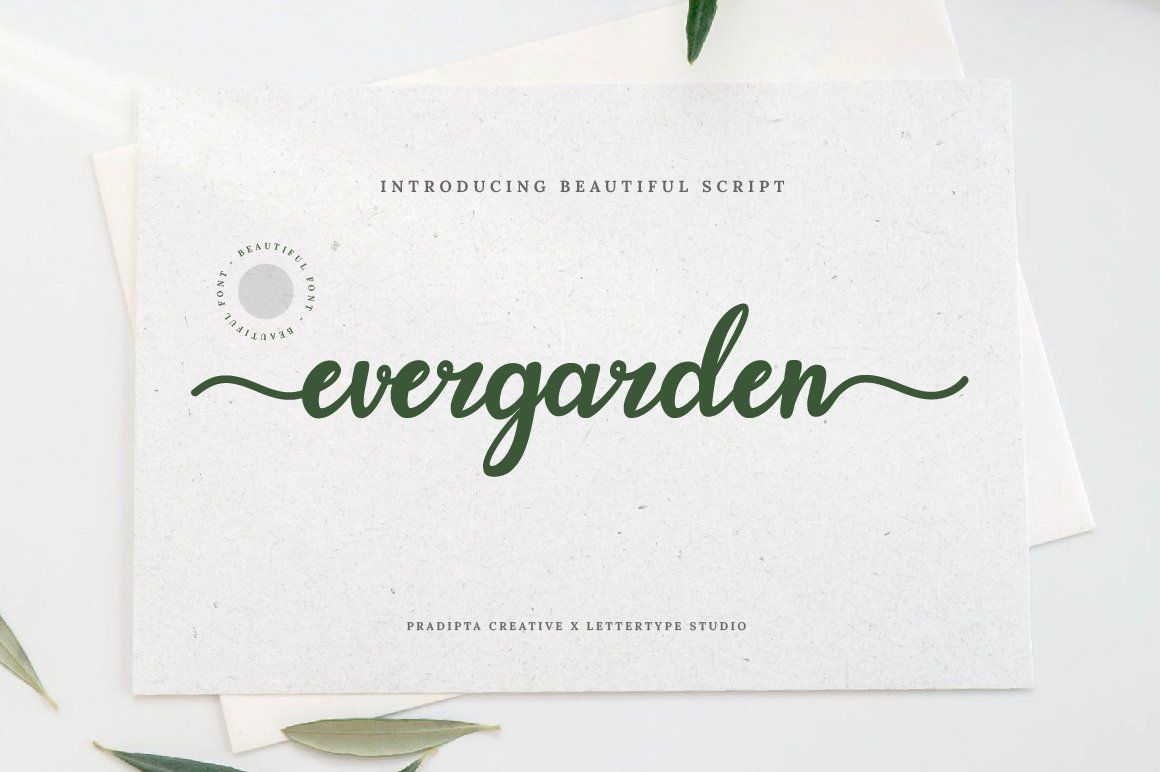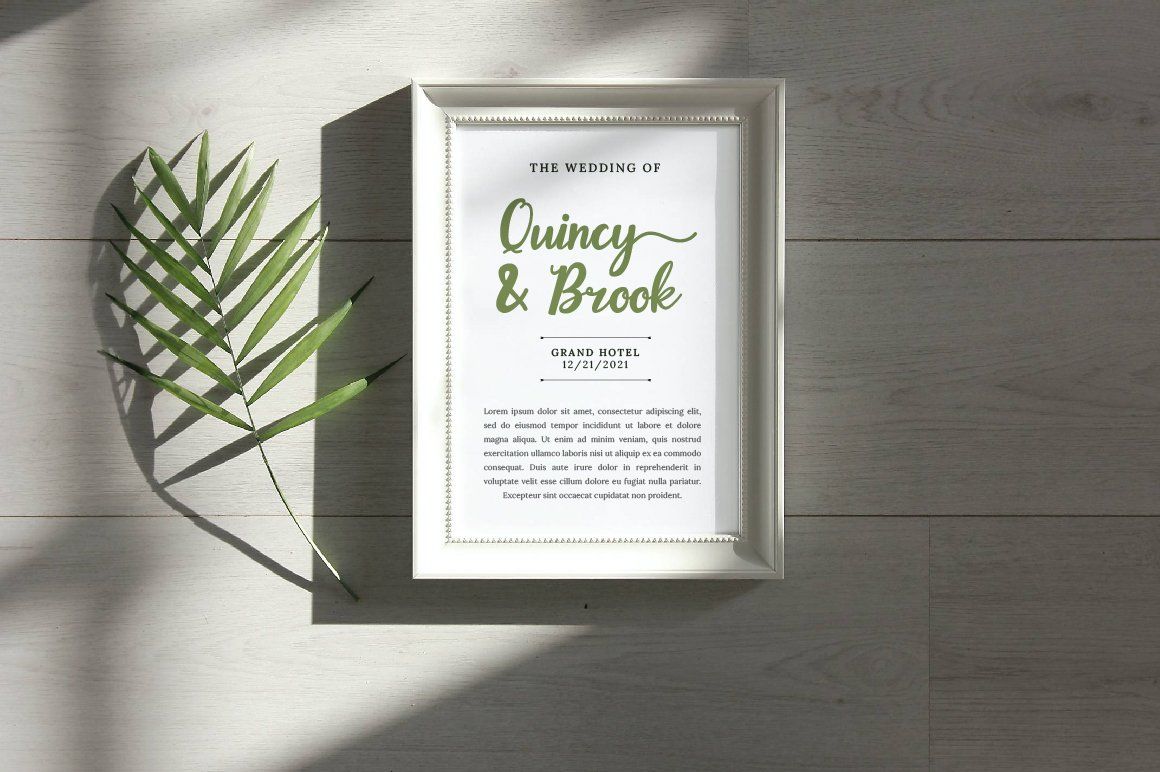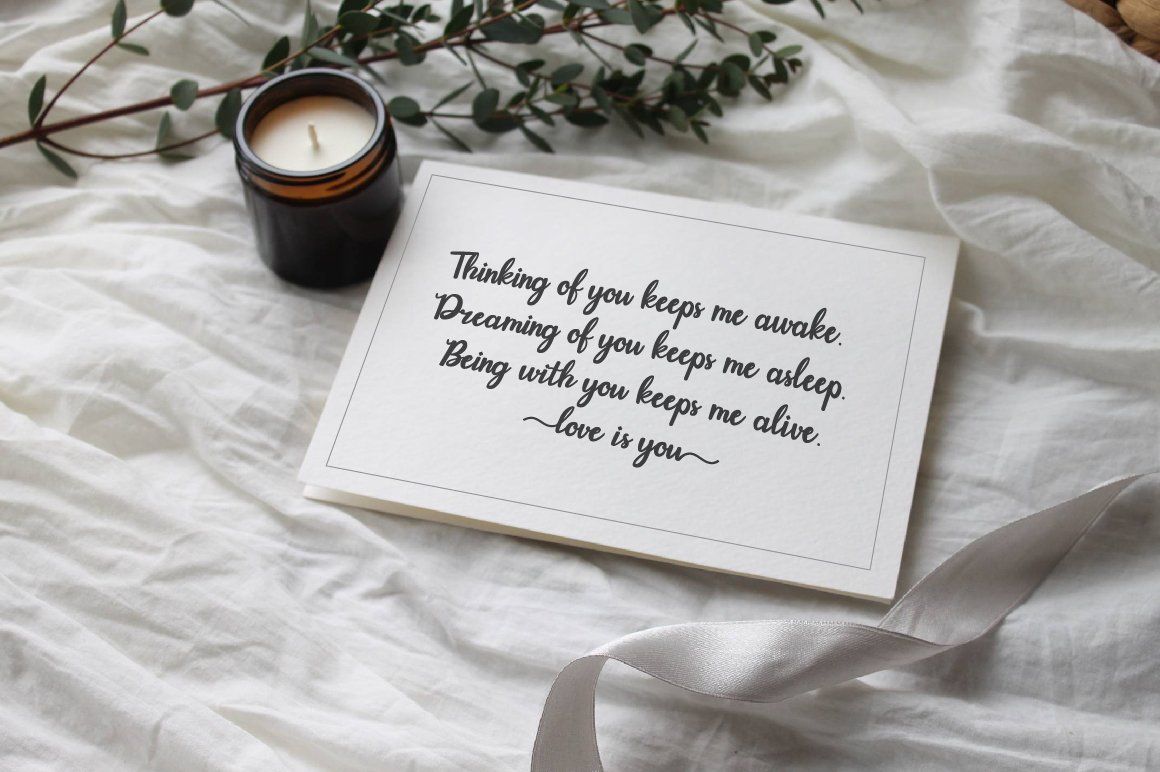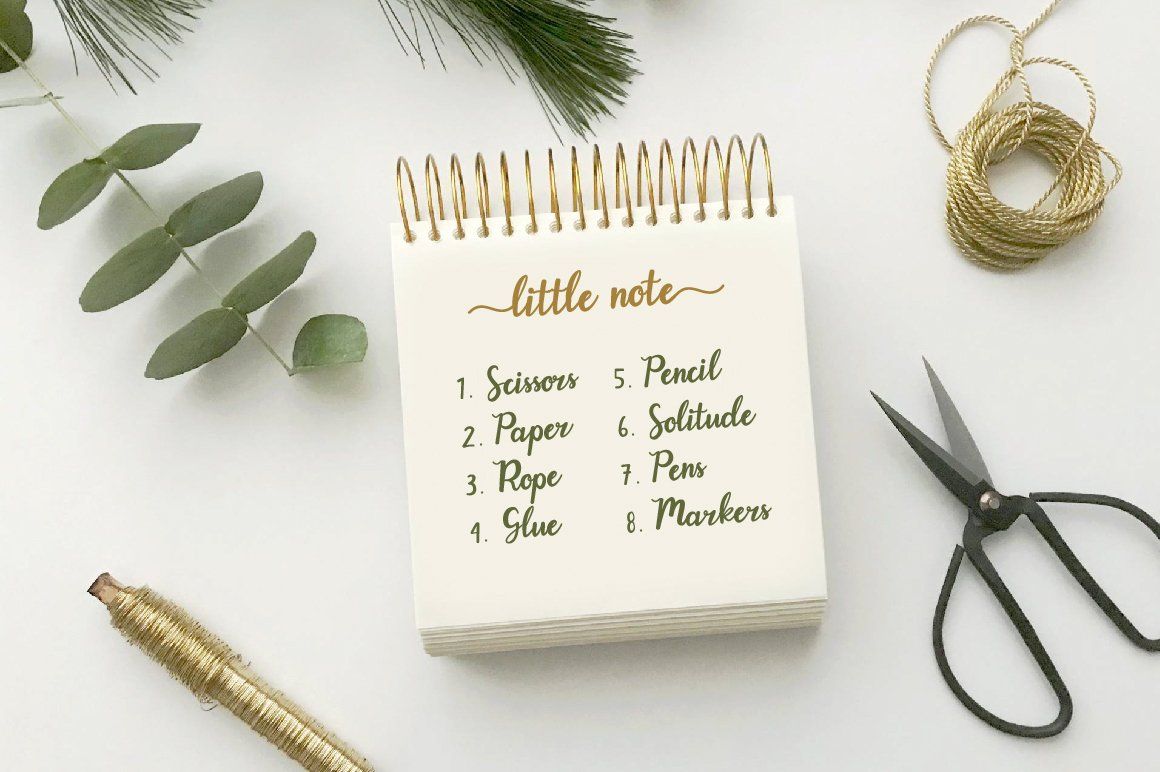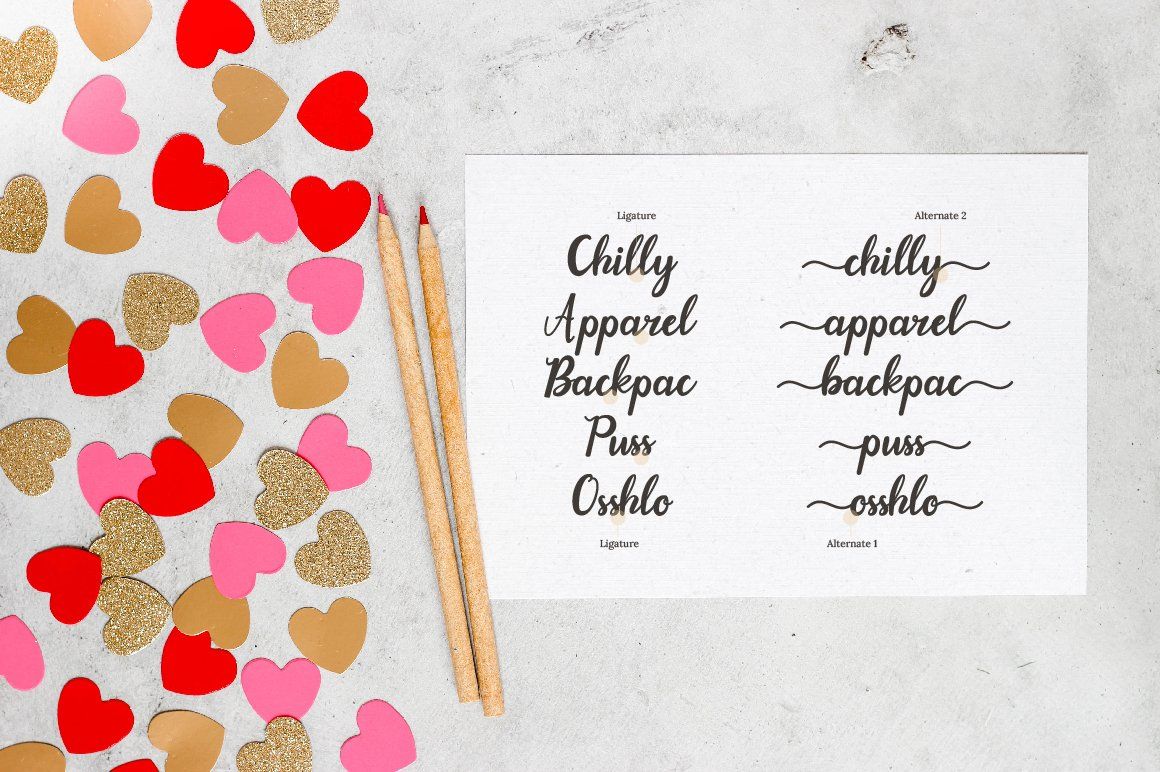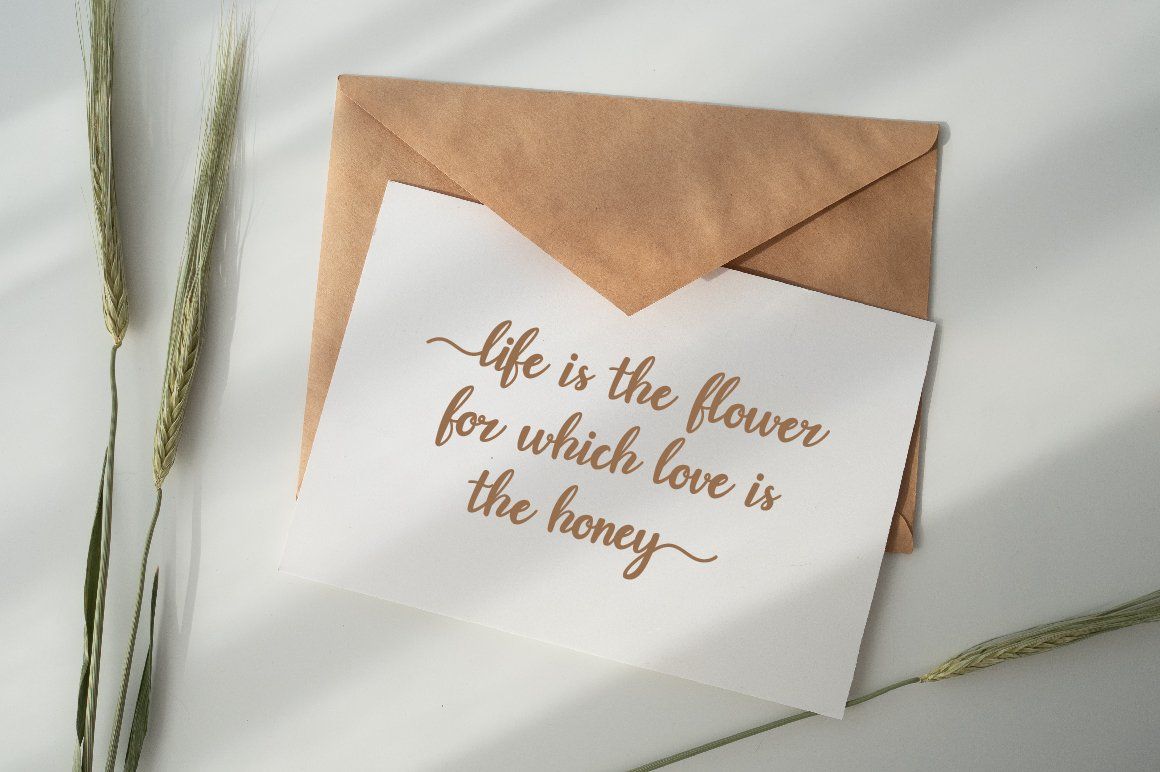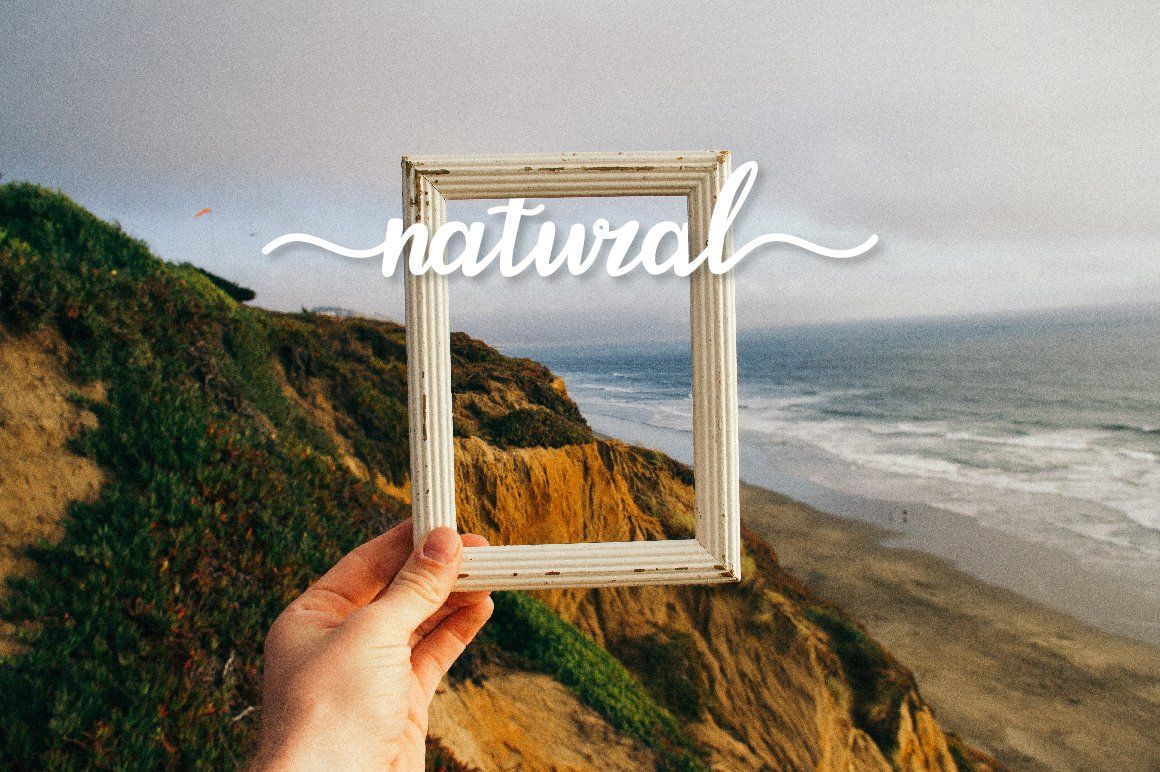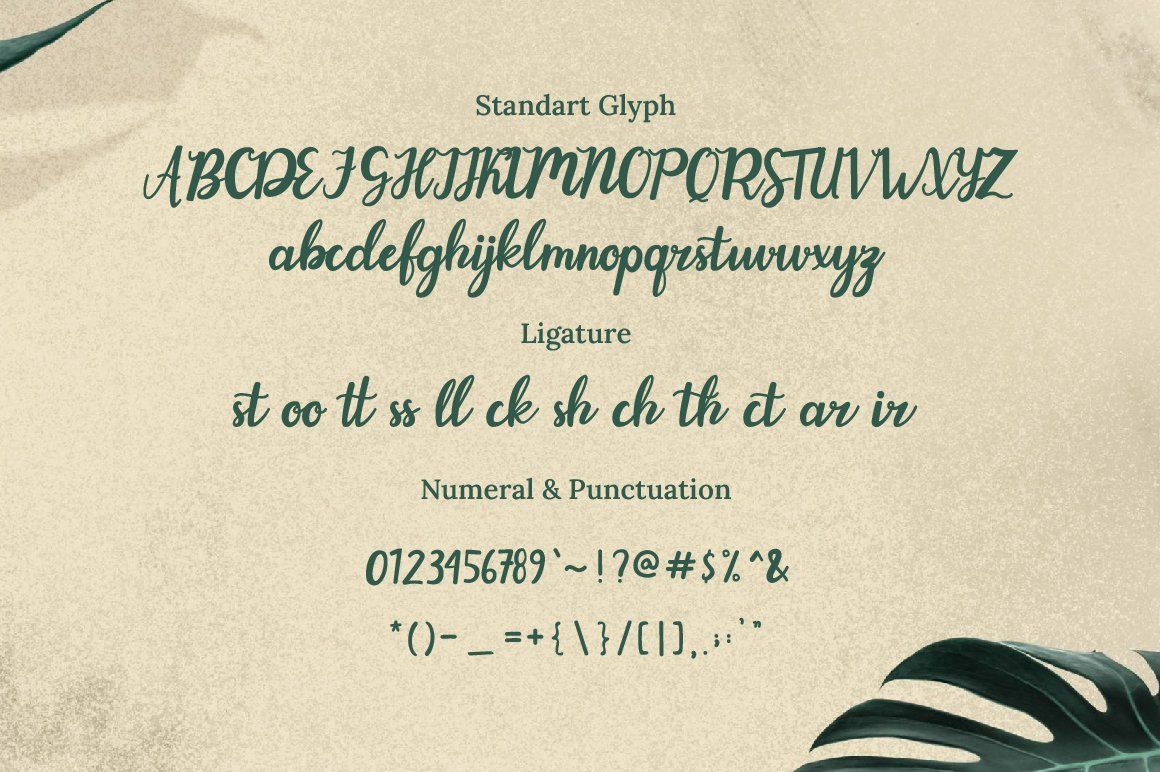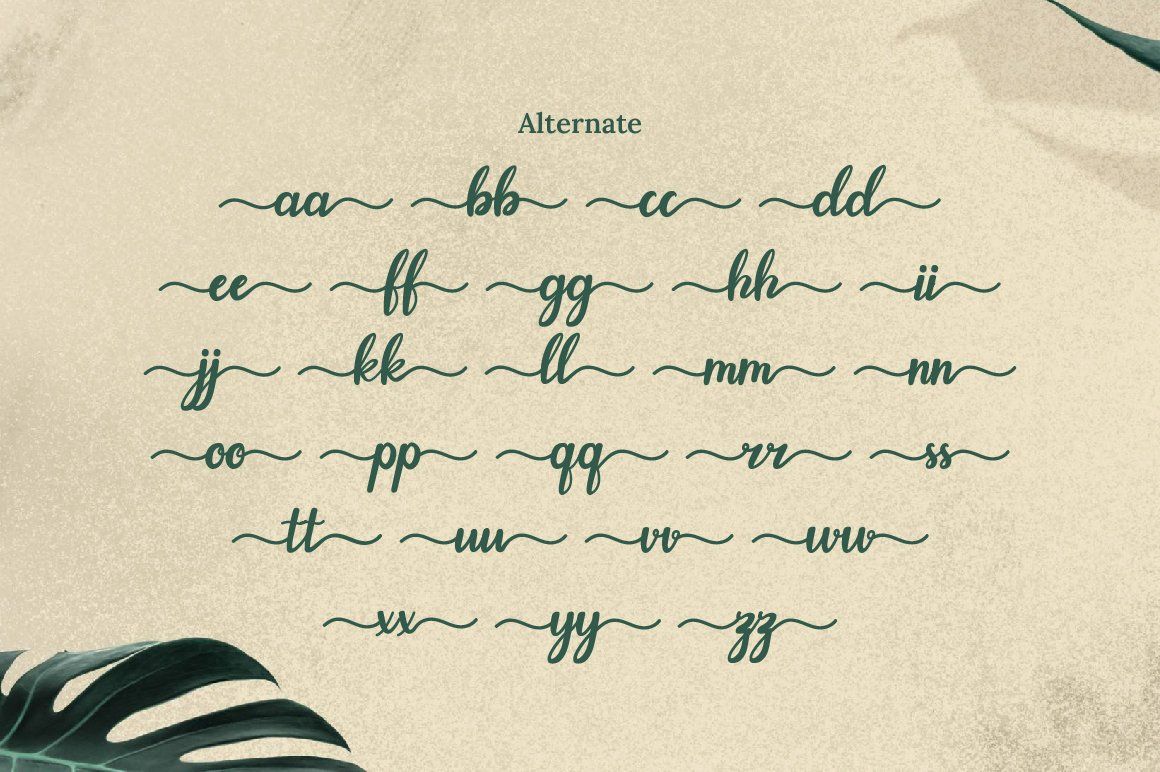
Please welcome, Evergarden! A beautiful font script! This font is perfect to be used for project with feminine & girly theme! You can play with the ligatures and stylistic alternate to create your own customized lettering. Add it to your most creative ideas and notice how it makes them come alive!
• Tons of glyphs, alternate, and ligature
Diki Pradipta Tri Atmojo - Lettertype Studio